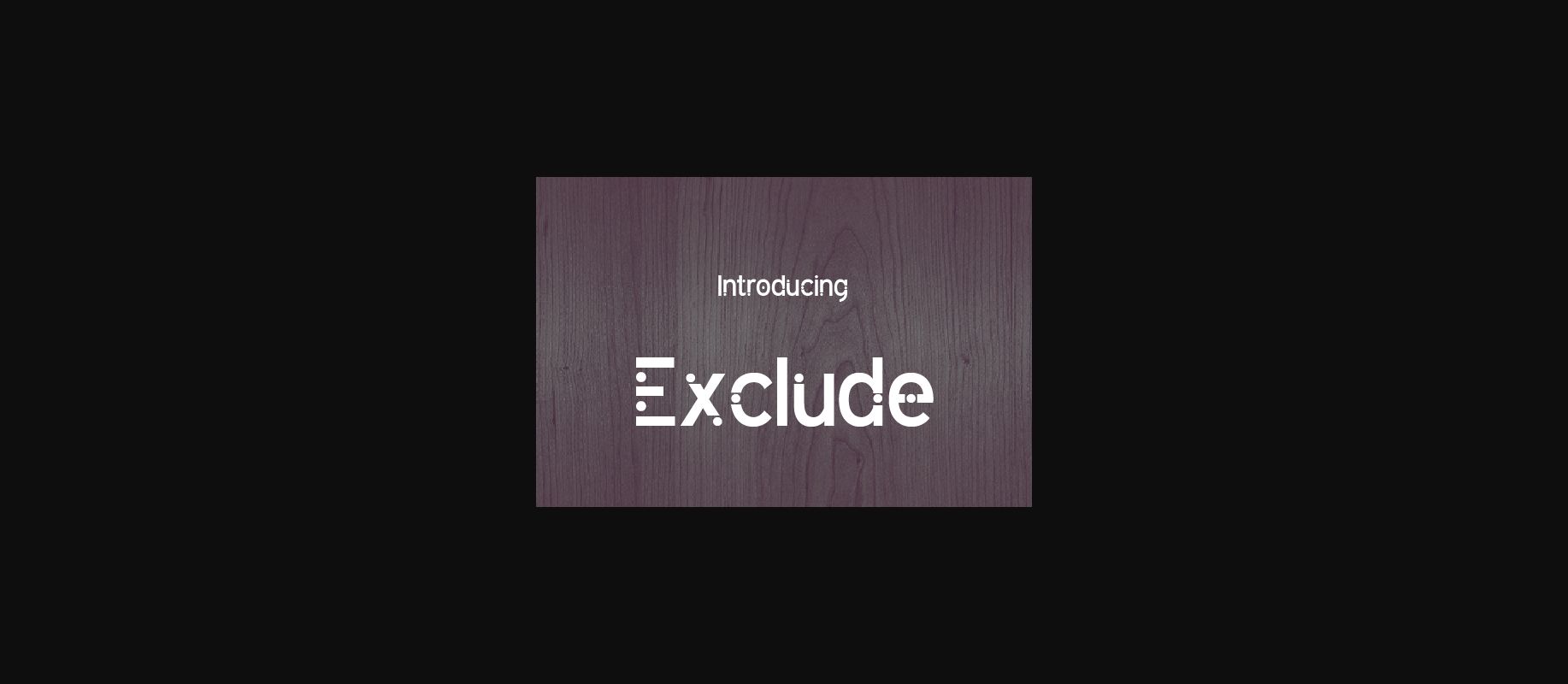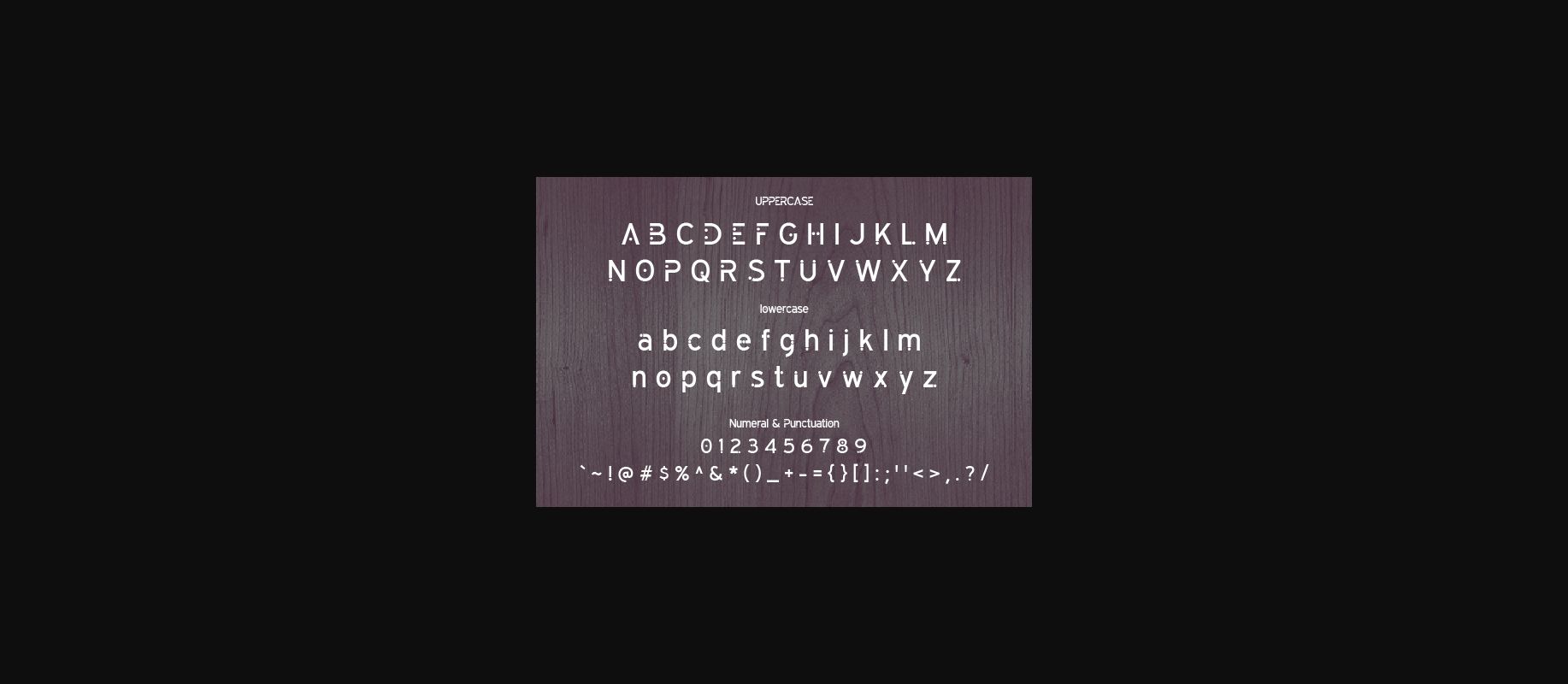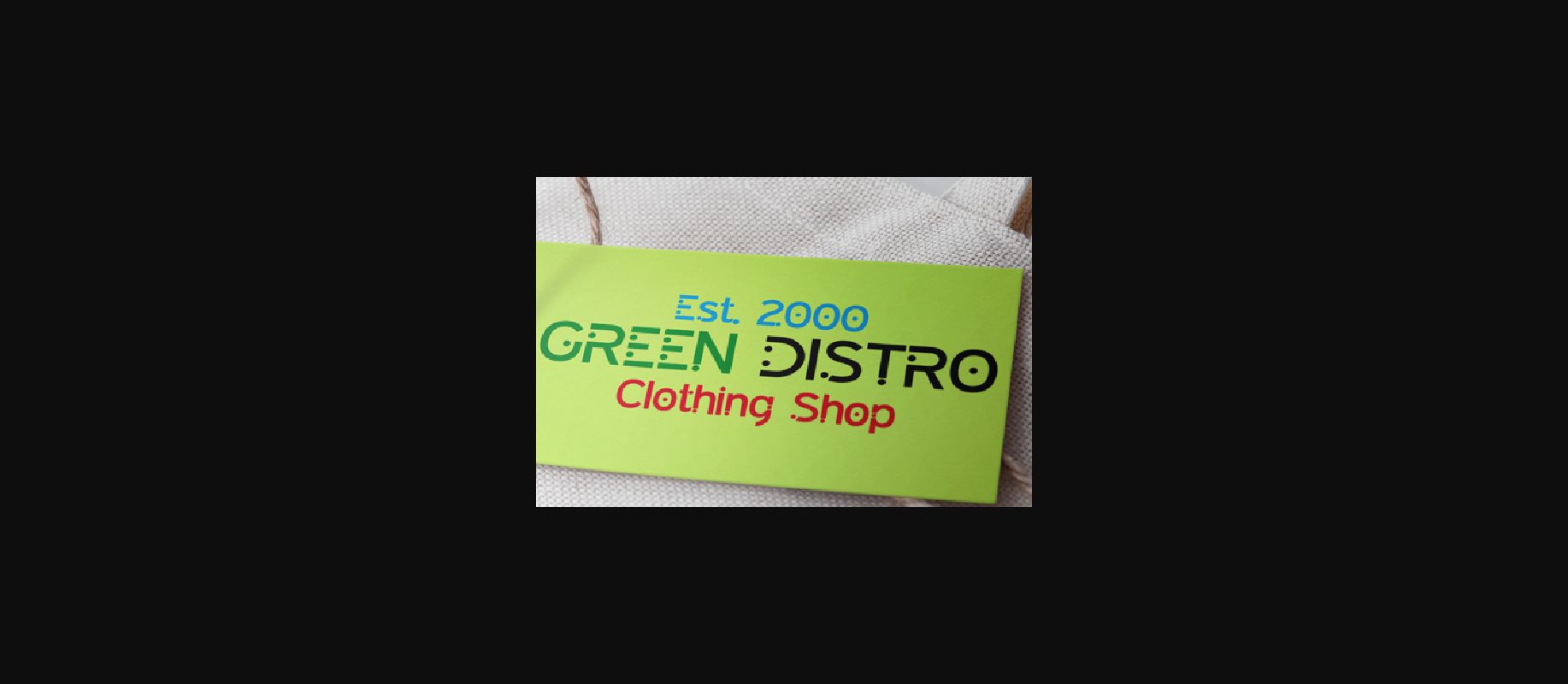
About Exclude Font
The Exclude is an unique, anti-stream typeface.
It’s perfect for name cards, posters, logos magazines, covers, banners, and large-scale artwork,